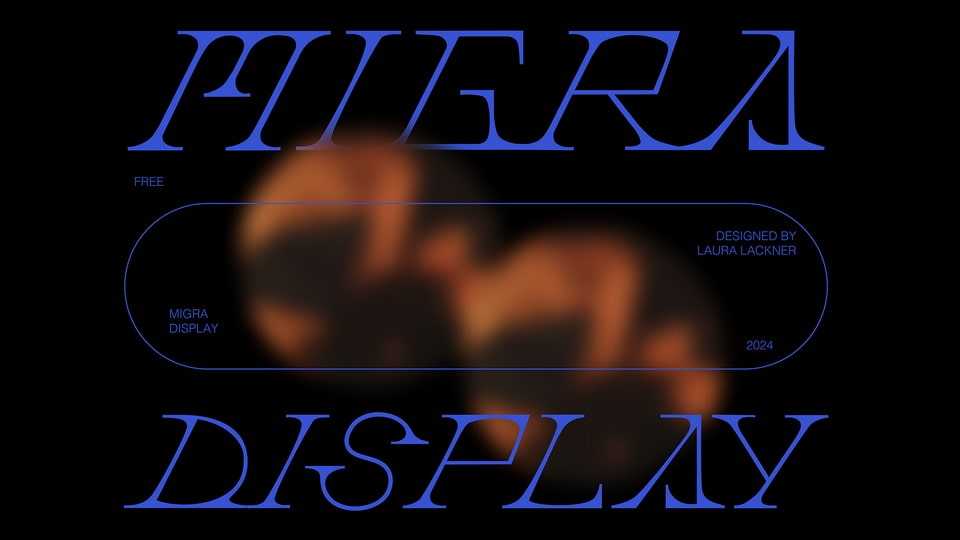
Download Migra font, a display typeface inspired by the Berliner techno culture. Migra font has a unique and a decorative look with a prickly vibe.
Designer: Laura Lackner